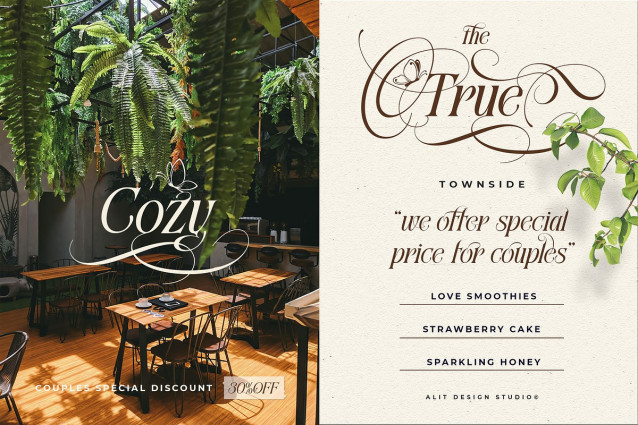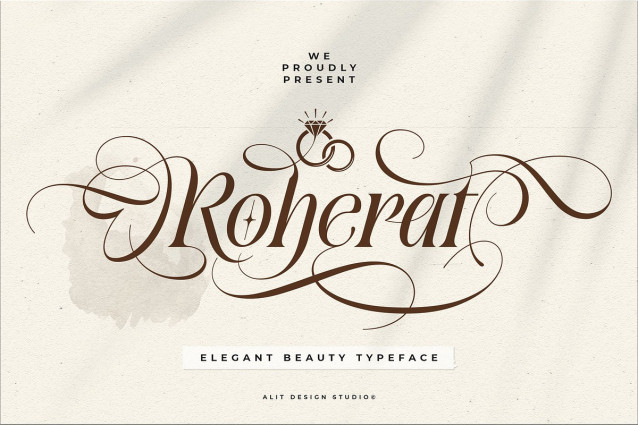
Roherat Font
Roherat Font, a groundbreaking serif font meticulously designed to elevate your creative projects. Roherat is not merely a typeface; it’s a meticulously crafted fusion, where the structured authority of traditional serifs seamlessly intertwines with the organic, fluid beauty of handwritten script-like swashes.
The Distinctive Fusion: Serif Meets Script At its heart, Roherat Typeface masterfully bridges two distinct typographic worlds. The foundational letterforms are rooted in a classic serif design, boasting clean lines, balanced proportions, and a refined presence that ensures clarity and legibility. These robust and elegant serifs provide a strong, dependable backbone, making Roherat ideal for substantial body text or prominent headlines where readability is paramount.
However, what truly sets Roherat apart are its mesmerizing, integrated script-like swashes. These aren’t just ornamental additions; they are an intrinsic part of the character designs, flowing organically from the serifs and strokes. Imagine the delicate, expressive flourishes of a calligrapher’s pen, now harmoniously integrated into the precision of a modern typeface. Each swash is designed to add a touch of personal artistry, creating a dynamic visual rhythm that dances across the page without ever overwhelming the core message. They evoke a sense of heritage, bespoke craftsmanship, and a soft, inviting warmth.